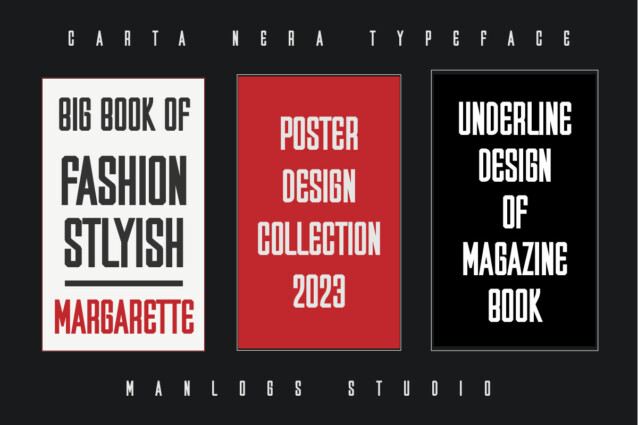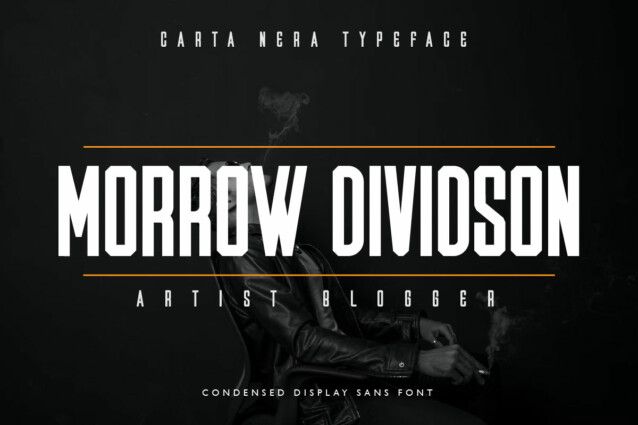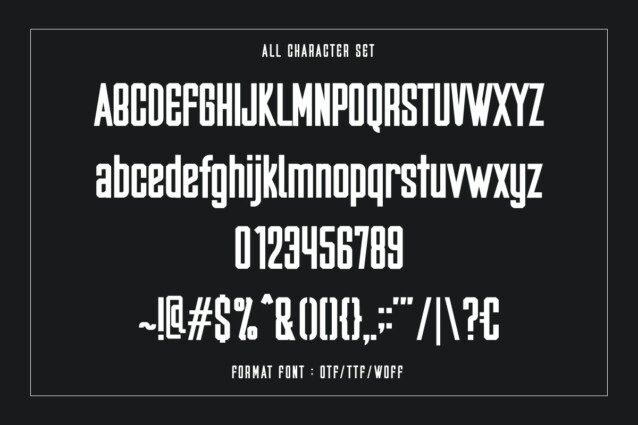
Carta Nera Font is a condensed sans serif font. This typeface will enhance your craft with little effort, making your product stand out from the competition.